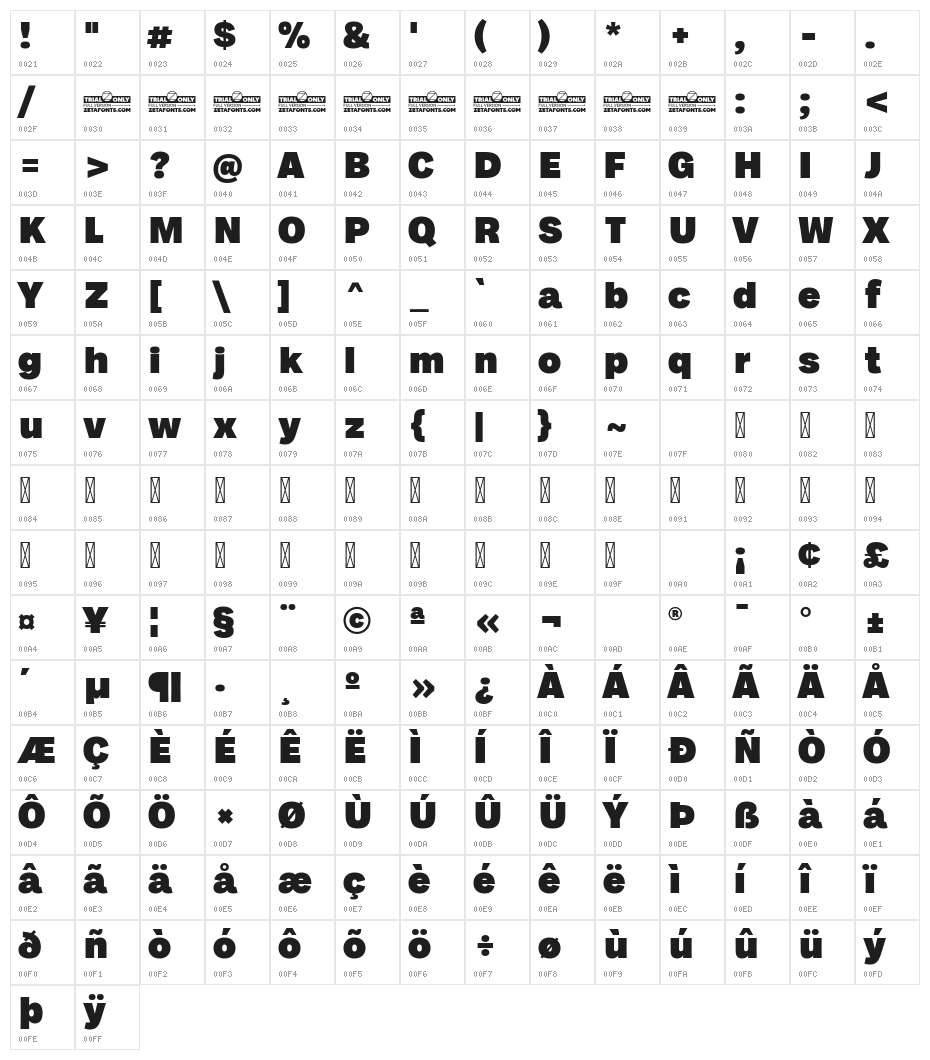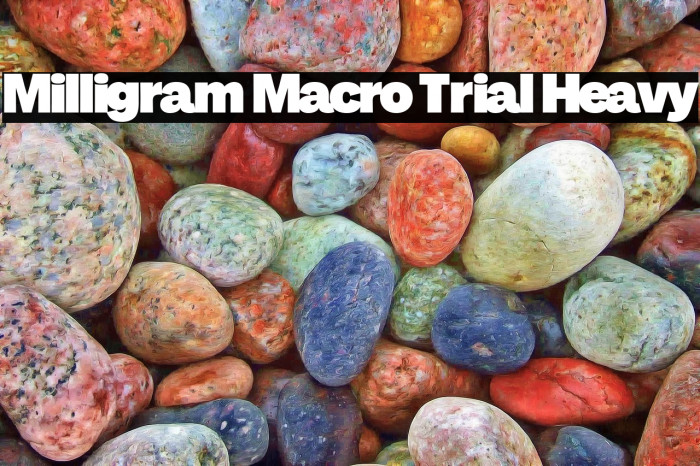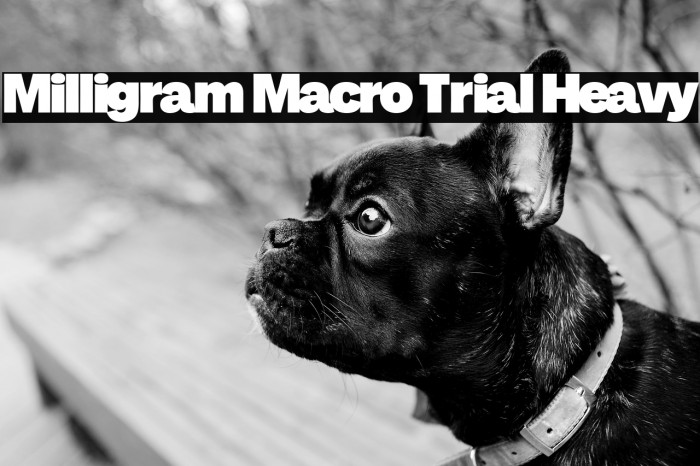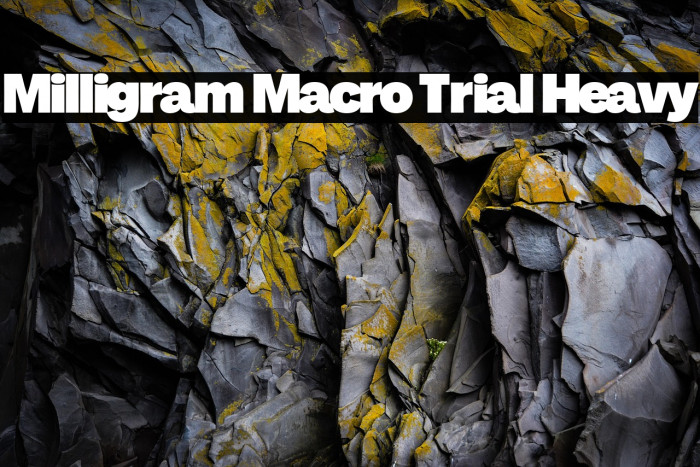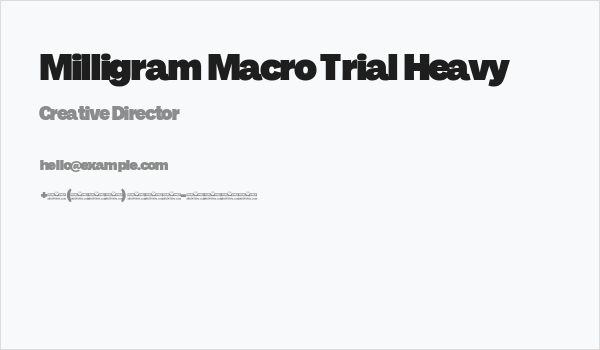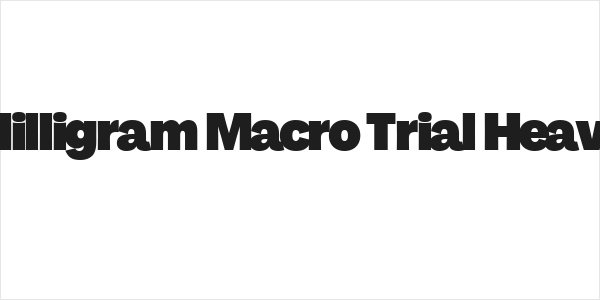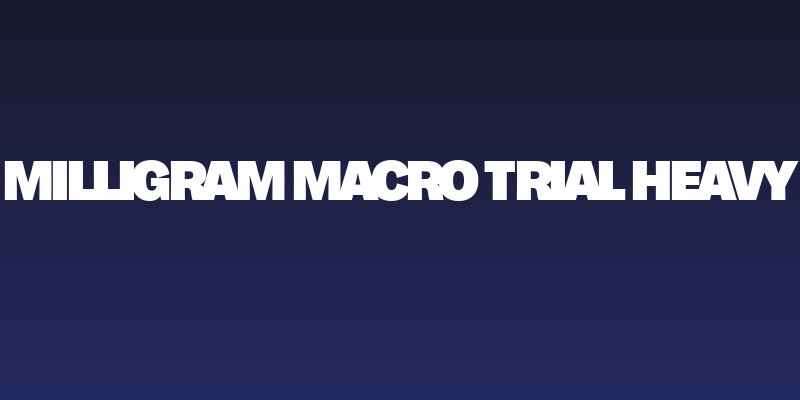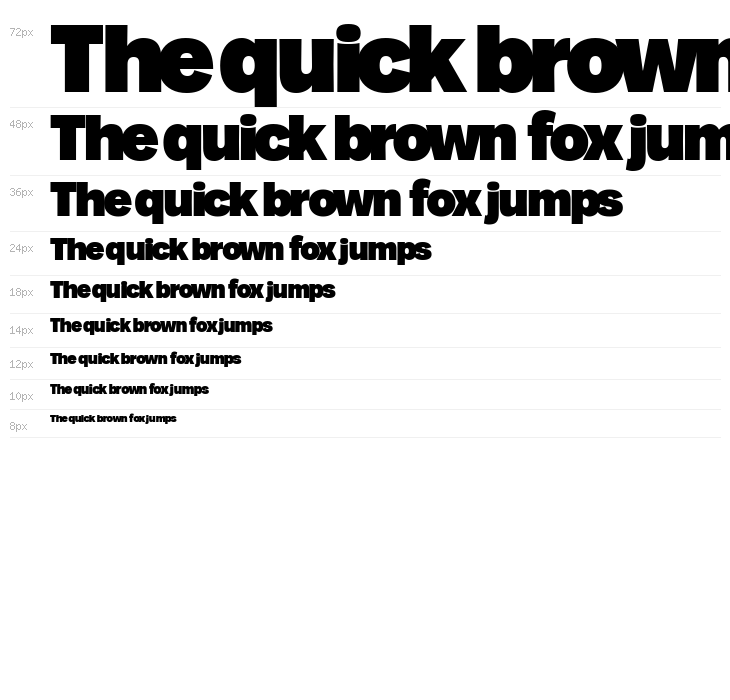
Milligram Macro Trial Heavy Font
Milligram Macro Trial Heavy Description
This font is characterized by its bold and heavy appearance, featuring thick strokes and a strong presence. The uppercase and lowercase letters are uniformly wide, creating a sense of stability and impact. The characters are tightly spaced, enhancing the boldness and making it ideal for attention-grabbing designs. The font includes a full set of uppercase and lowercase letters, numbers, and a variety of special characters. Its design is modern and assertive, suitable for projects that require a strong visual statement.
| Proposed Projects | Ideal for headlines, posters, branding, and any design requiring a strong, impactful presence. |